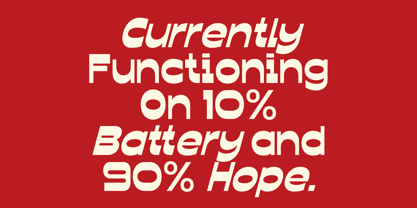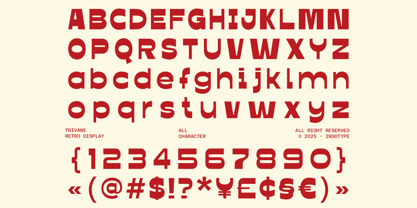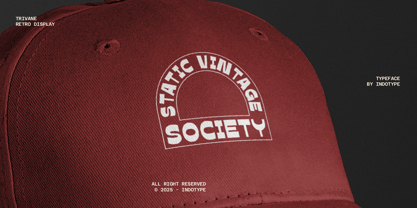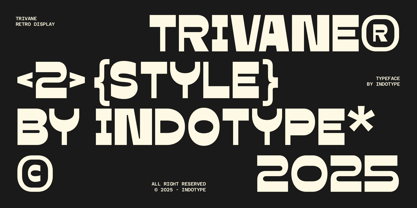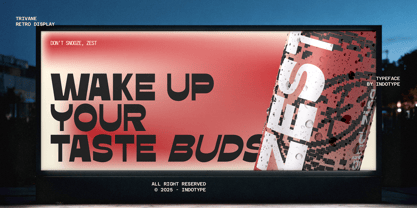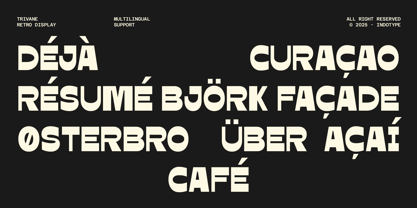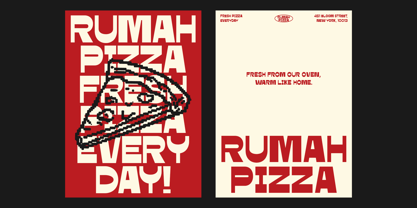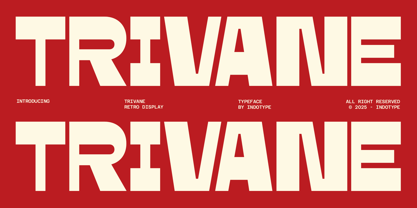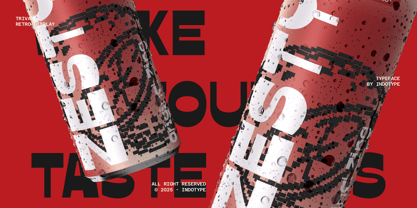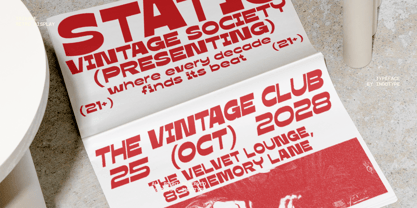
IT Trivane
by Indotype
The IT Trivane Font Family was designed by Dede Kurniawan and published by Indotype. IT Trivane contains 2 styles and family package options. More about this family
Step into a world of retro-futurism with Trivane, a striking reverse contrast display font that commands attention. Drawing inspiration from 1970s and 80s sci-fi aesthetics, its unconventional stroke weights—thick verticals and thin horizontals—create a dynamic, energetic, and instantly recognizable personality. This is not a subtle typeface; it's built for impact. Trivane excels in headlines, logos, posters, and any project where you need to evoke nostalgia while feeling fresh and bold. Its distinct "typerace" moniker hints at a design optimized for high-impact, short-form text, ensuring maximum legibility and style at larger sizes. Pack a visual punch and transport your audience with the unique character of Trivane. • Ideal for: Headlines, Logotyping, Poster Design, Album Covers, Branding for Tech & Gaming, Retro-Themed Projects. • Classification: Display, Reverse Contrast, Retro. • Attributes: Bold, Energetic, Futuristic, Nostalgic, Attention-Grabbing.
Designers: Dede Kurniawan
Foundry: Indotype